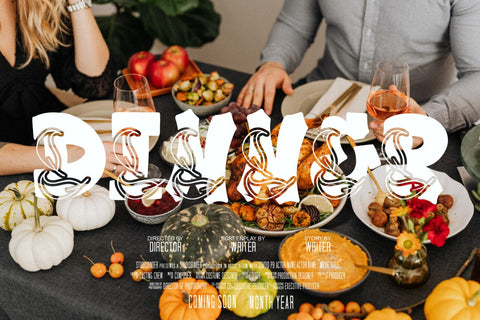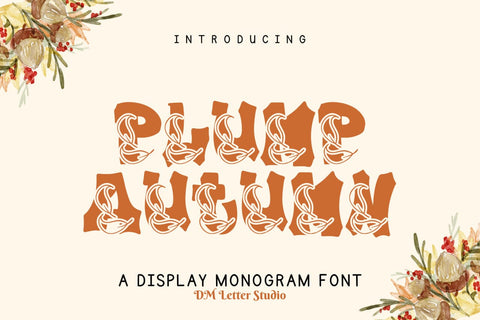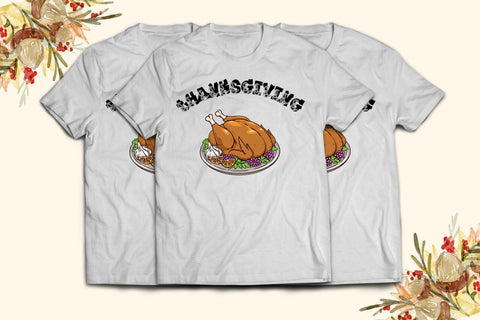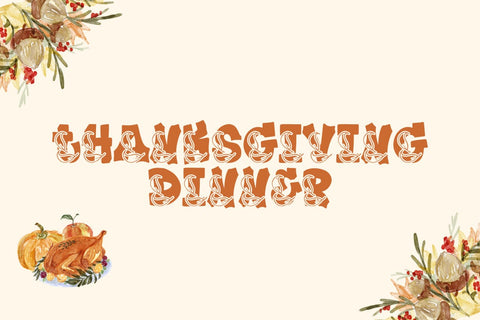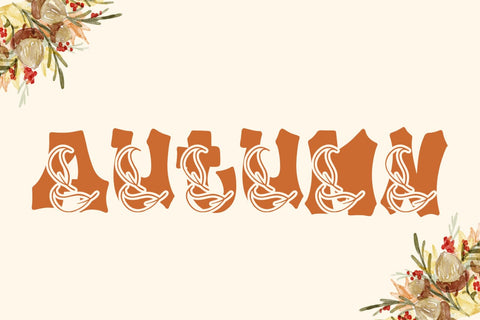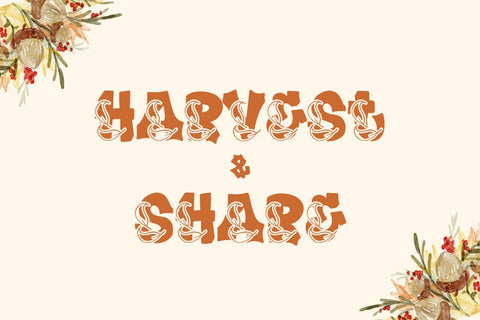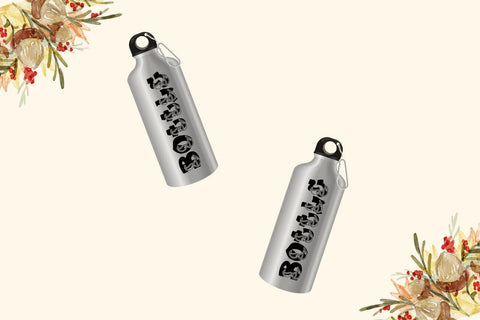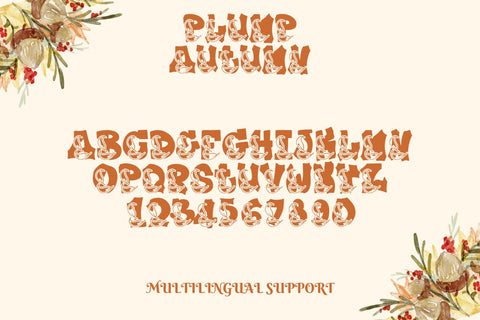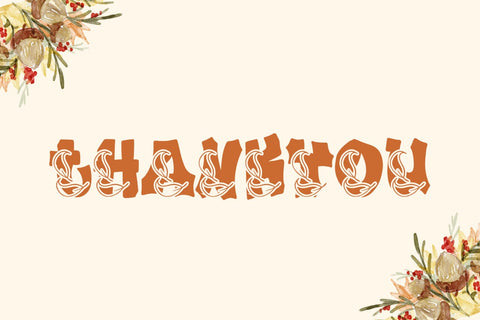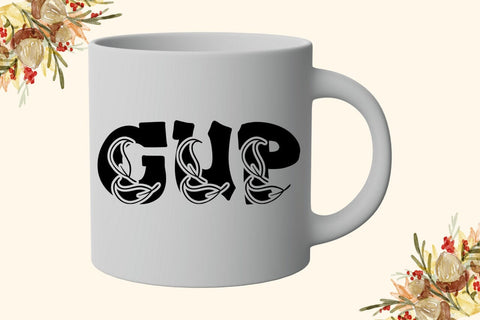
Plump Autumn Font
Meet Plump Autumn Font
Plump Autumn Font brings cozy, happy energy to every project. Rounded letters feel friendly and bold, while soft curves keep words inviting at any size. Use it for fall quotes, pumpkin patch signs, mugs, shirts, classroom boards, bake-sale labels, stickers, and seasonal social posts. Because strokes stay even and counters stay open, your designs read clearly on both print and screen.
Why creators love this autumn font
First, it looks warm. Next, it cuts cleanly for Cricut, Silhouette, and laser projects. Then it pairs well with simple sans or handwritten scripts, so you can style headlines and tags in minutes. As a result, you can launch full fall collections without juggling many typefaces.
Ready for fast seasonal drops
Plump Autumn Font in action
Create harvest festival posters with big, round titles. Add apple-cider labels, pie-sale price cards, and friendly classroom headers. For social posts, stack short phrases like “Fall Feels,” “Apple Day,” or “Pumpkin Season.” Because spacing is balanced, lines stack neatly, and your layouts stay tidy.
Clean curves tuned for vinyl, print, laser, DTF, and sublimation
Design tips for cozy results
Keep headlines short and chunky. Pair with a neat sans for dates and prices. Then, add a light shadow or outline to lift text over photos. Finally, use textured papers, kraft backgrounds, and warm gradients to amplify the autumn mood.